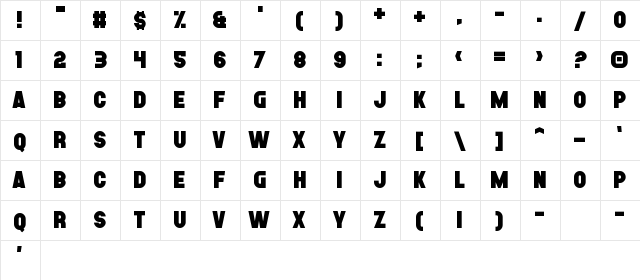
Horticulture Regular
| Designer | Andrew McCluskey |
Design Context for Horticulture Typeface
Horticulture offers clean, dependable letterforms without strong stylistic allegiance, making it a practical choice for designers who need flexibility.